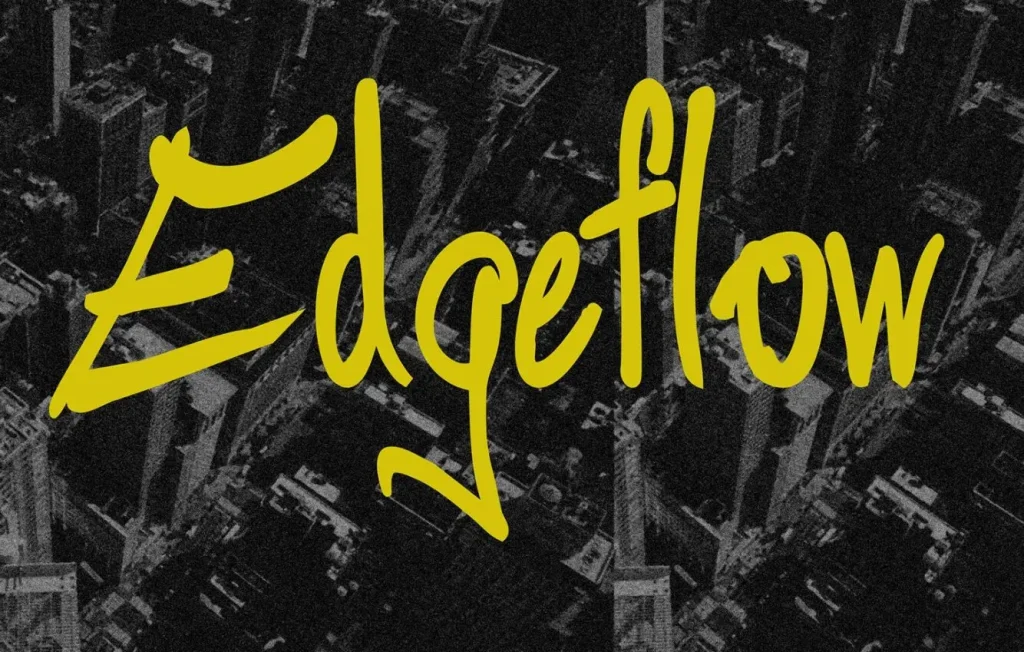
Edgeflow is a free handwritten font that gives your projects a raw, urban character. It draws inspiration from city life, including graffiti tags and hand-painted signs.
This typeface captures the authentic look of real handwriting with its bold and irregular strokes. You can use it for designs that require a human, gritty, and authentic feel.
Features
- Authentic handwritten style
- Bold, irregular letterforms
- Inspired by urban textures and graffiti
- Intentionally unrefined kerning and sizing